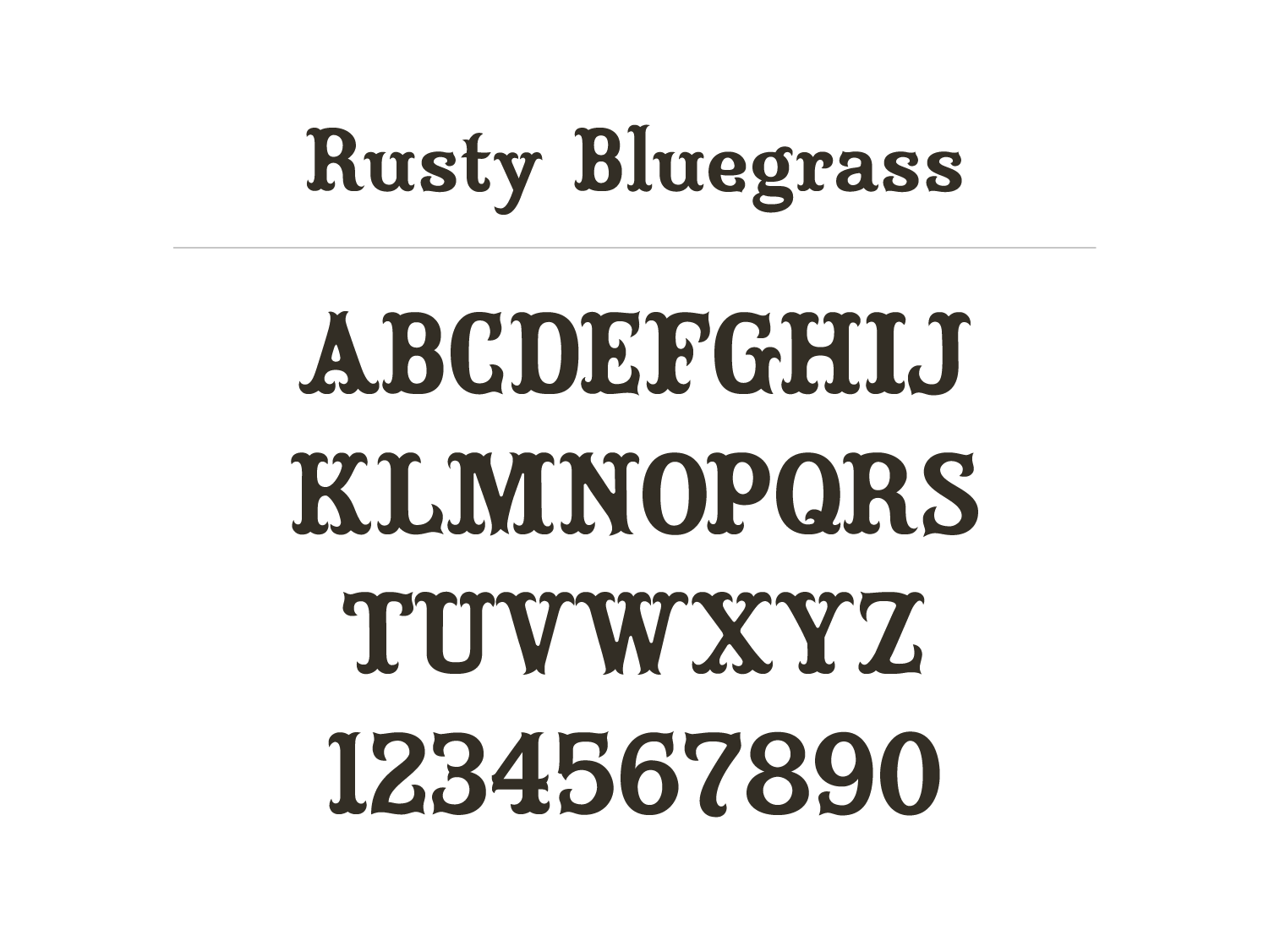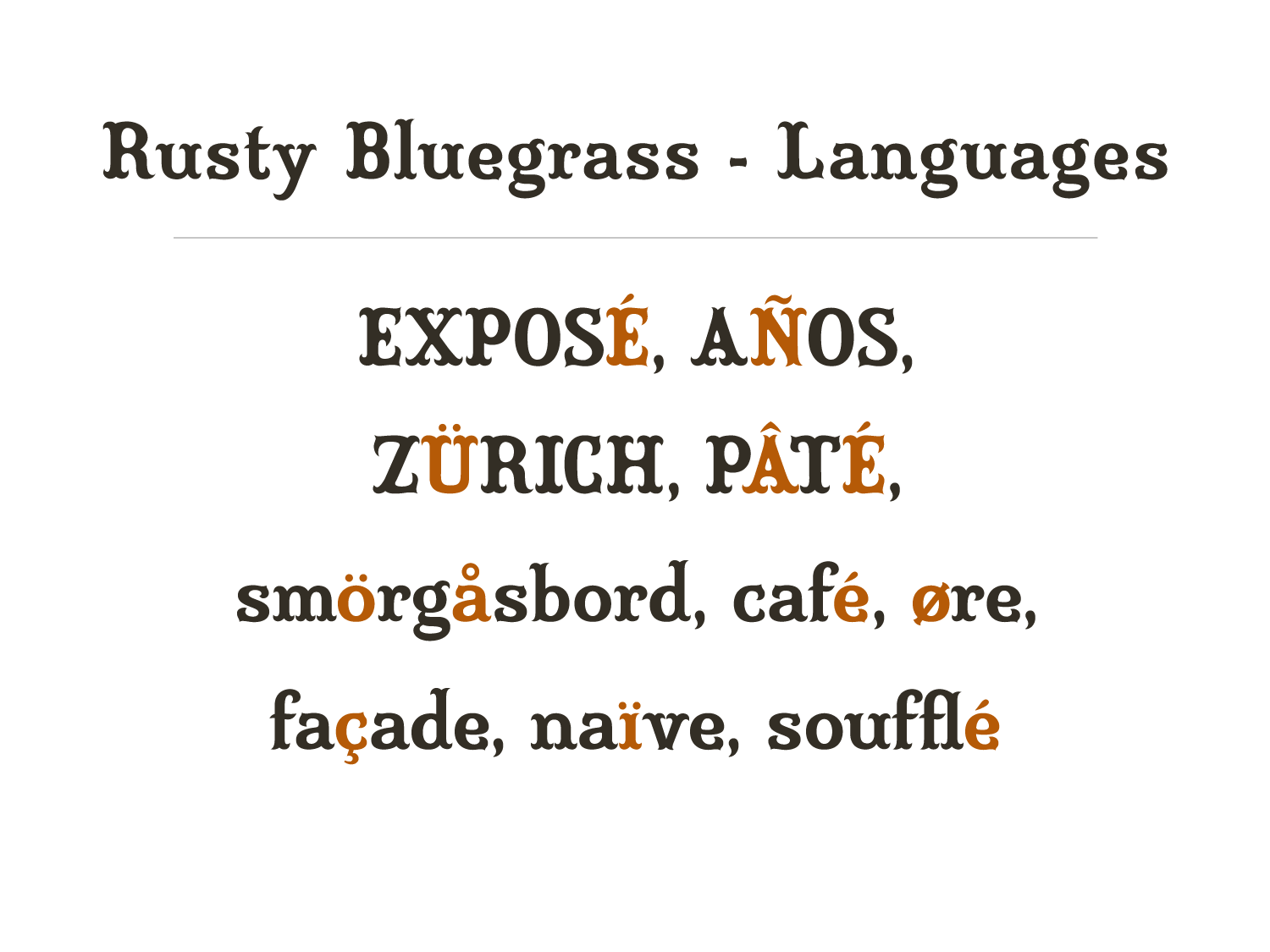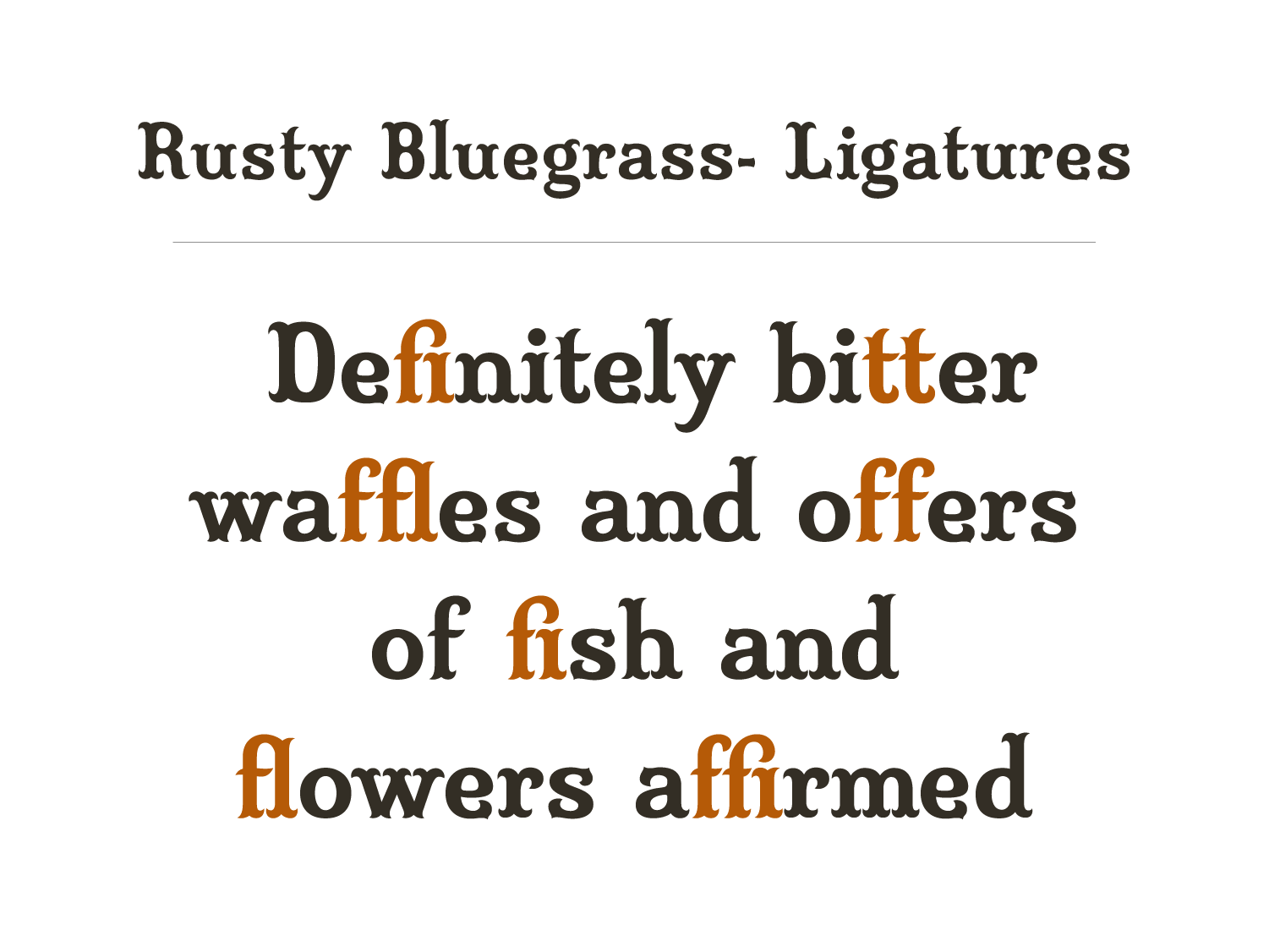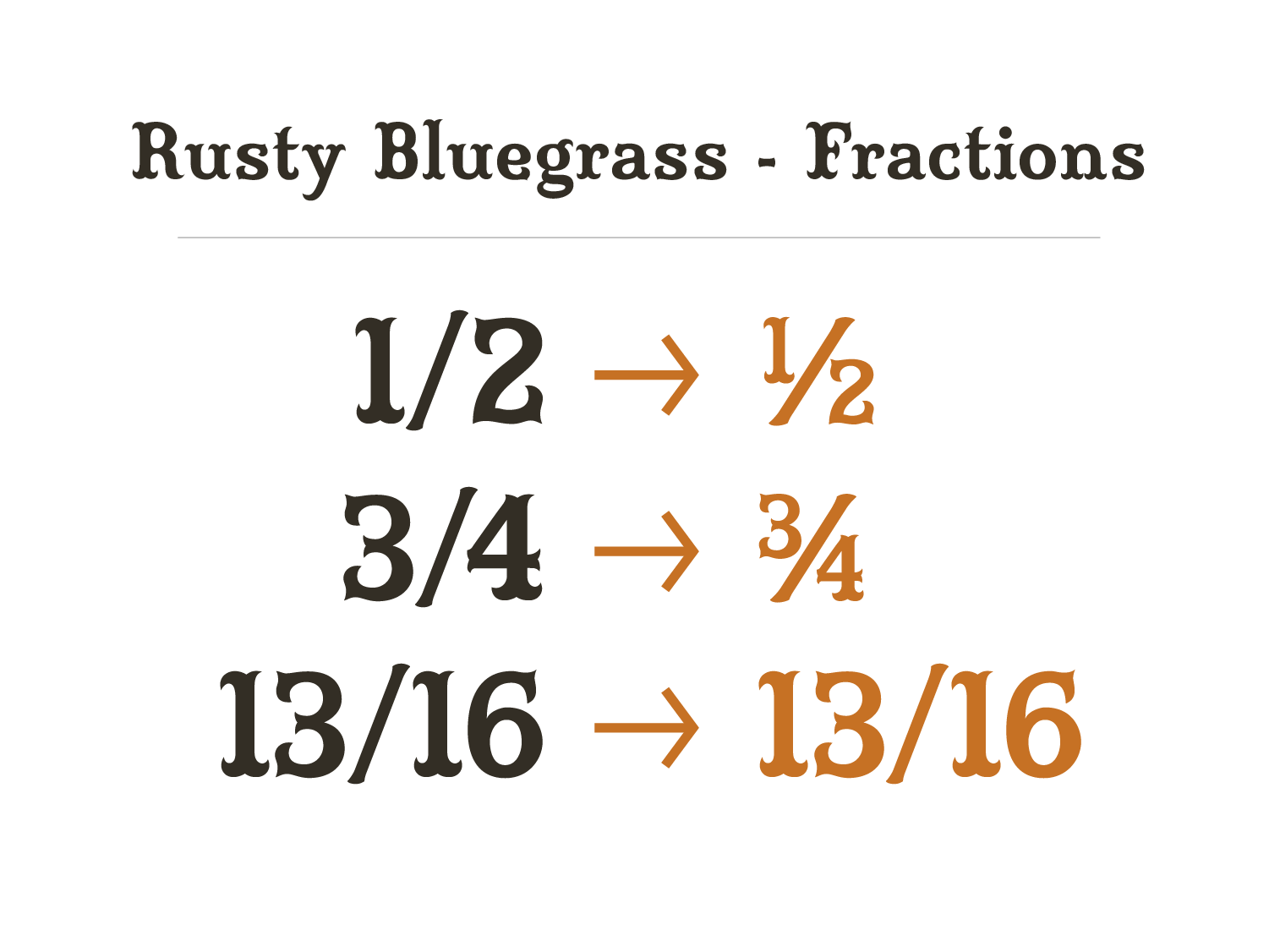
This font is based on type examples of “Ionic Shaded”, found in a book from 1892 called “Compact Book of Specimens – Mackellar, Smiths & Jordan Company, Philadelphia”. The entire alphabet wasn’t included, so I made up what I couldn’t find.